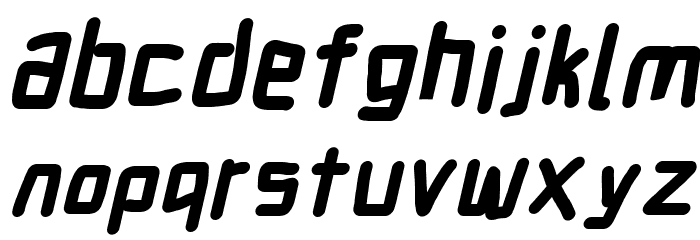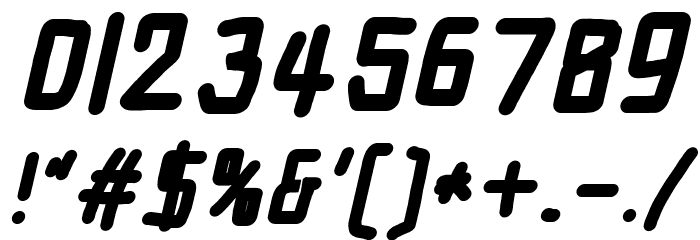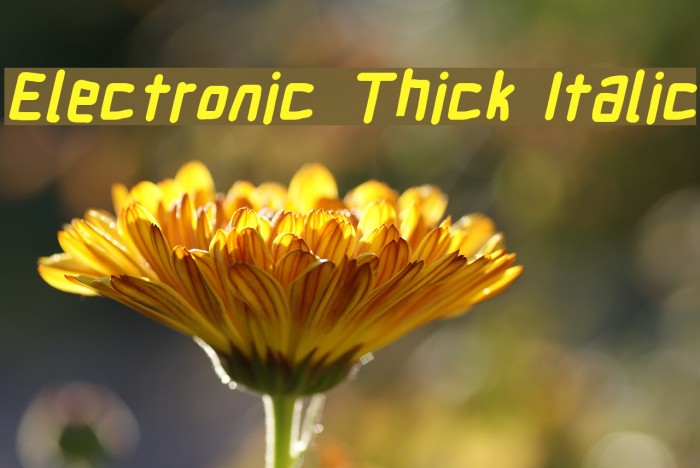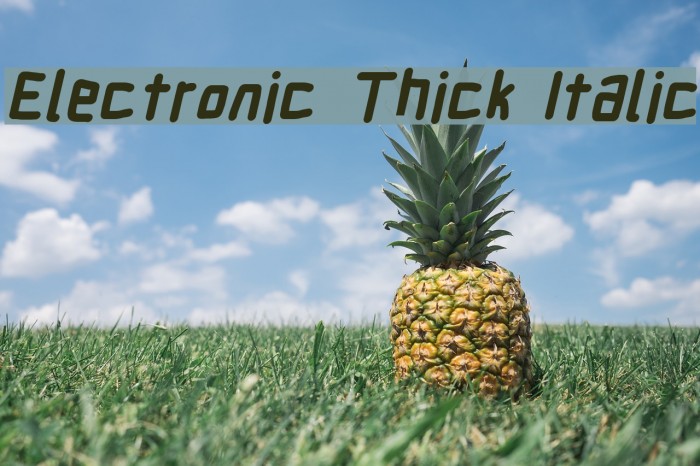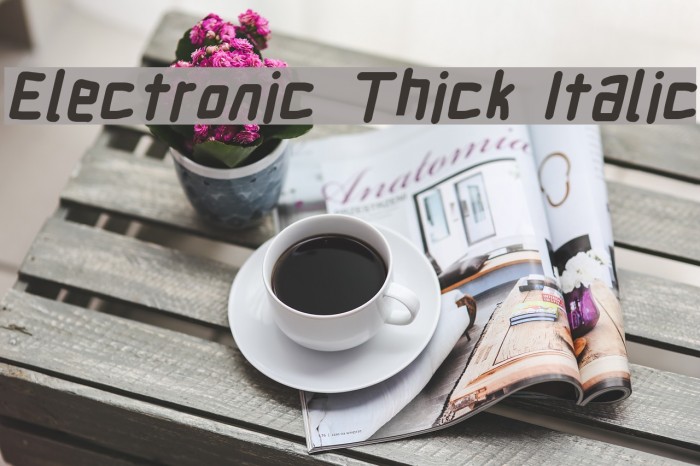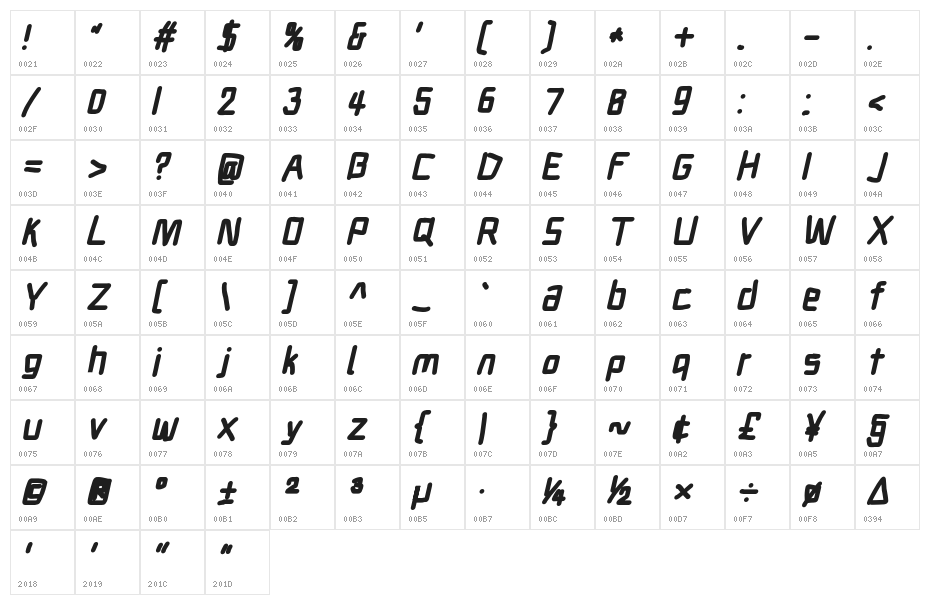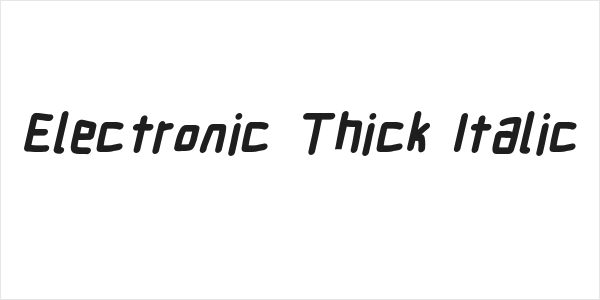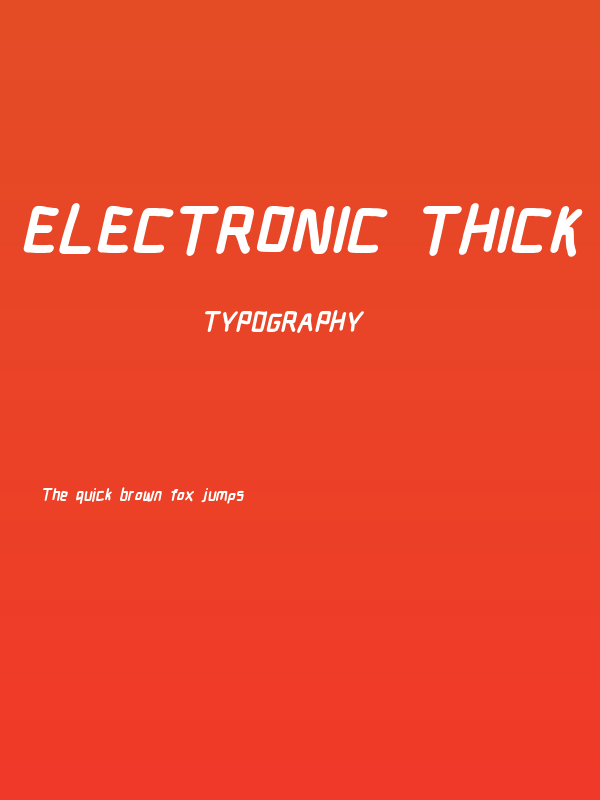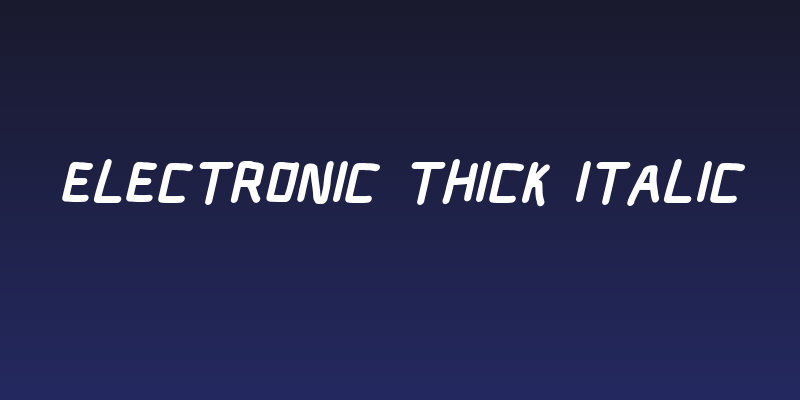
Electronic Thick Italic Font
This font features a bold and dynamic style with a distinct italic slant, giving it a sense of motion and energy. The characters are thick and rounded, providing a strong visual impact. The uppercase letters are uniform in height, while the lowercase letters maintain a consistent baseline, enhancing readability. The numerals are bold and clear, making them stand out effectively. Special characters are designed to match the overall bold and italicized theme, ensuring consistency throughout the font. The font's design is modern and slightly futuristic, making it suitable for projects that require a contemporary and energetic feel.